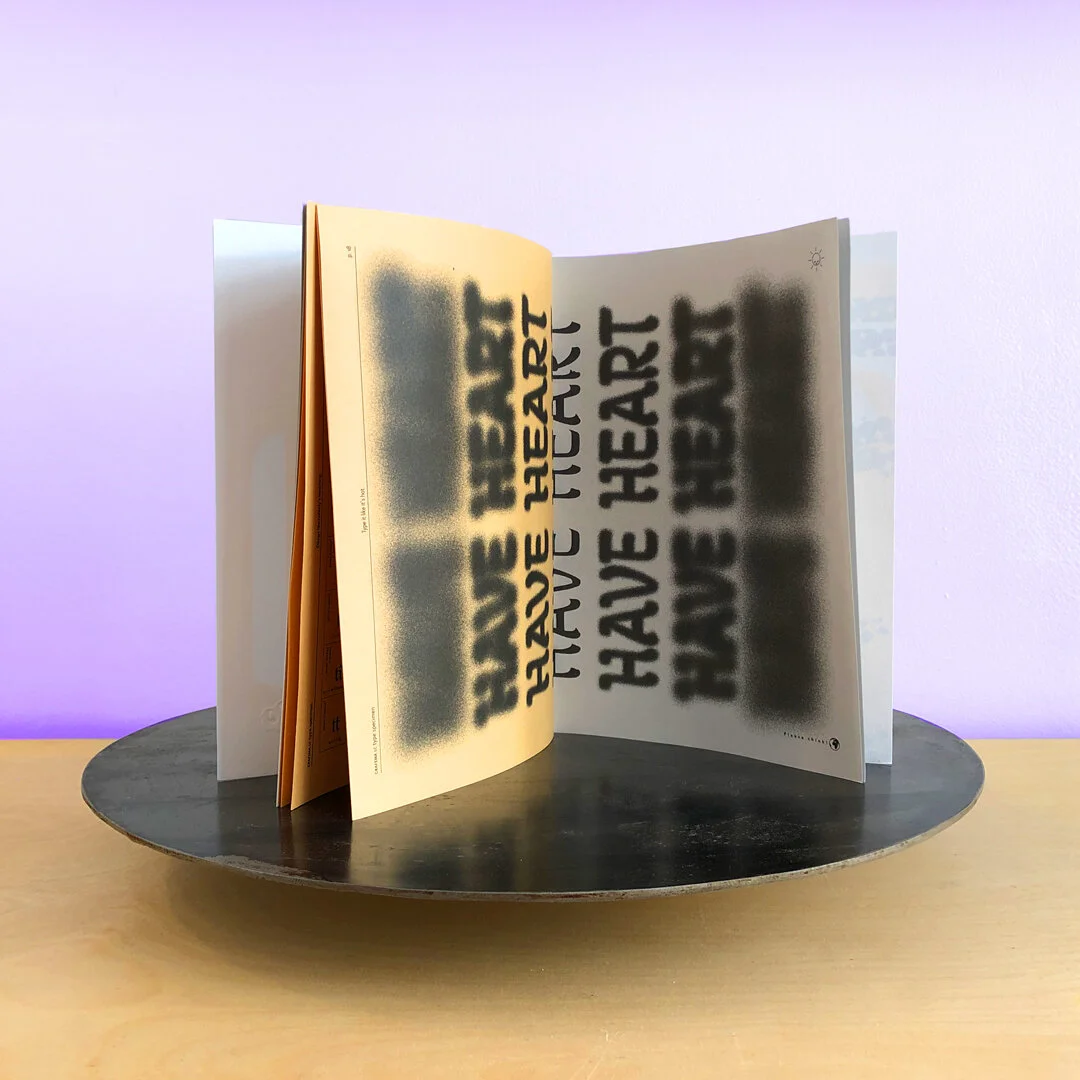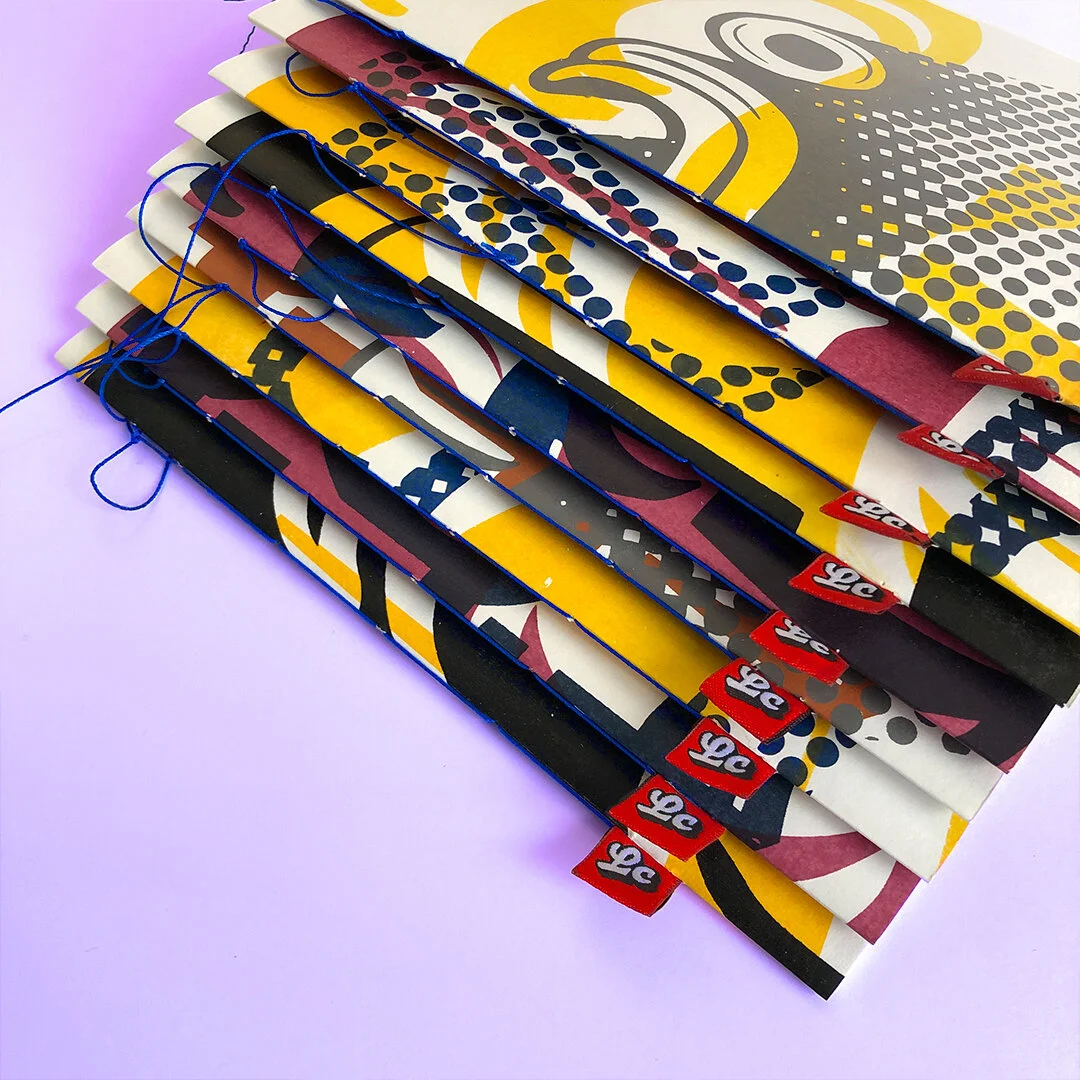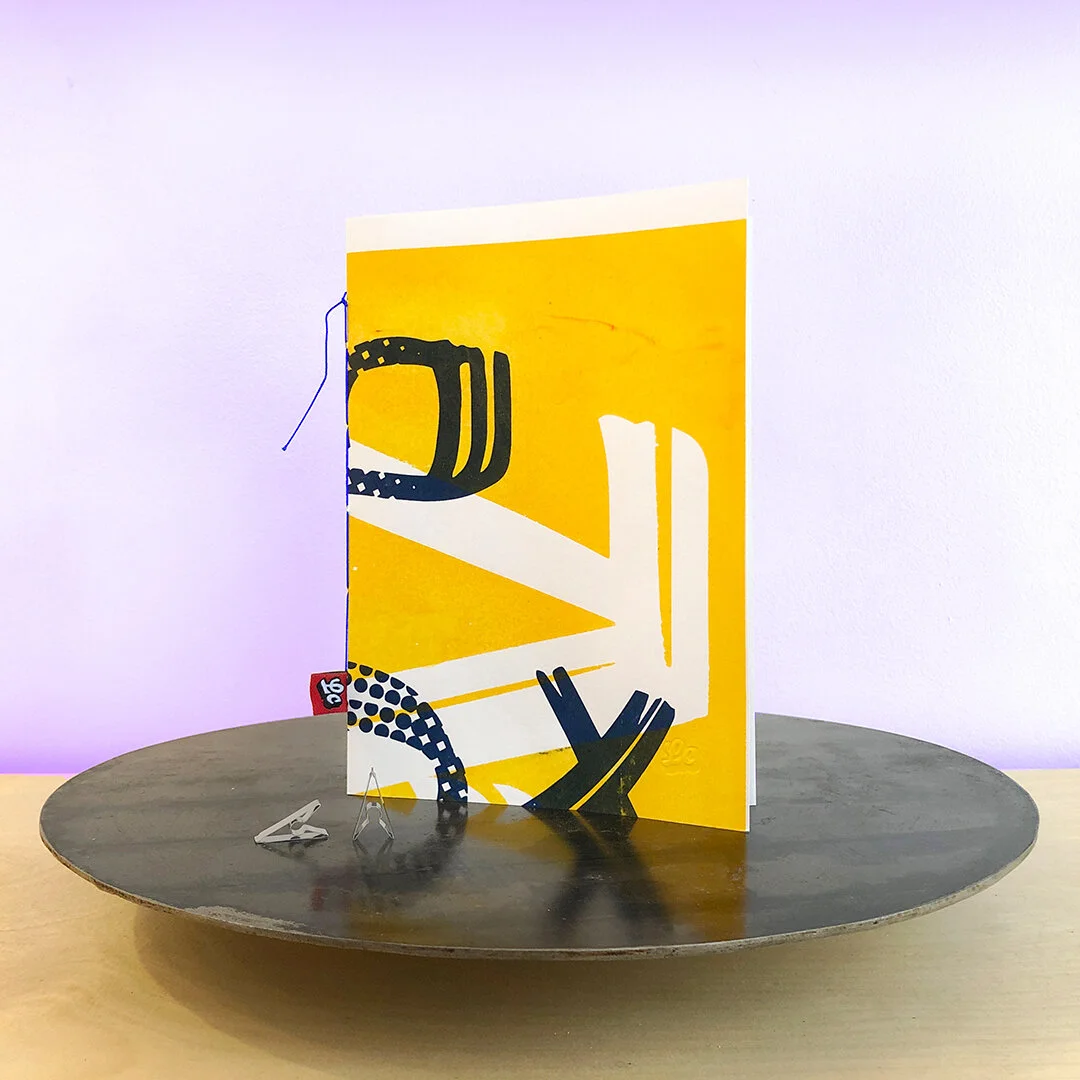
What a fine specimen
Project: Grafema Type Specimen
24 pages showcasing our calligraphy based typeface - Grafema LC. First edition of 20 copies designed and handbound in-house. Covers were screenprinted on 200 gsm white paper by @Dzhingibi at nopointatelier and each one is unique.
Printed on 80 gsm offset coloured paper. Stitched with a sturdy 100% cotton thread in reflex blue.